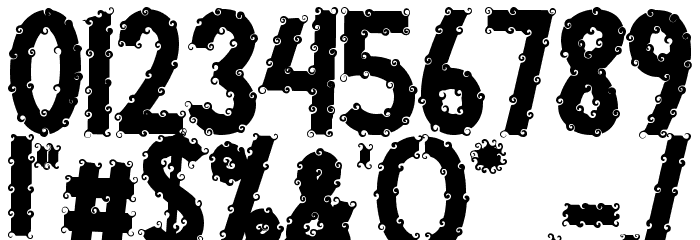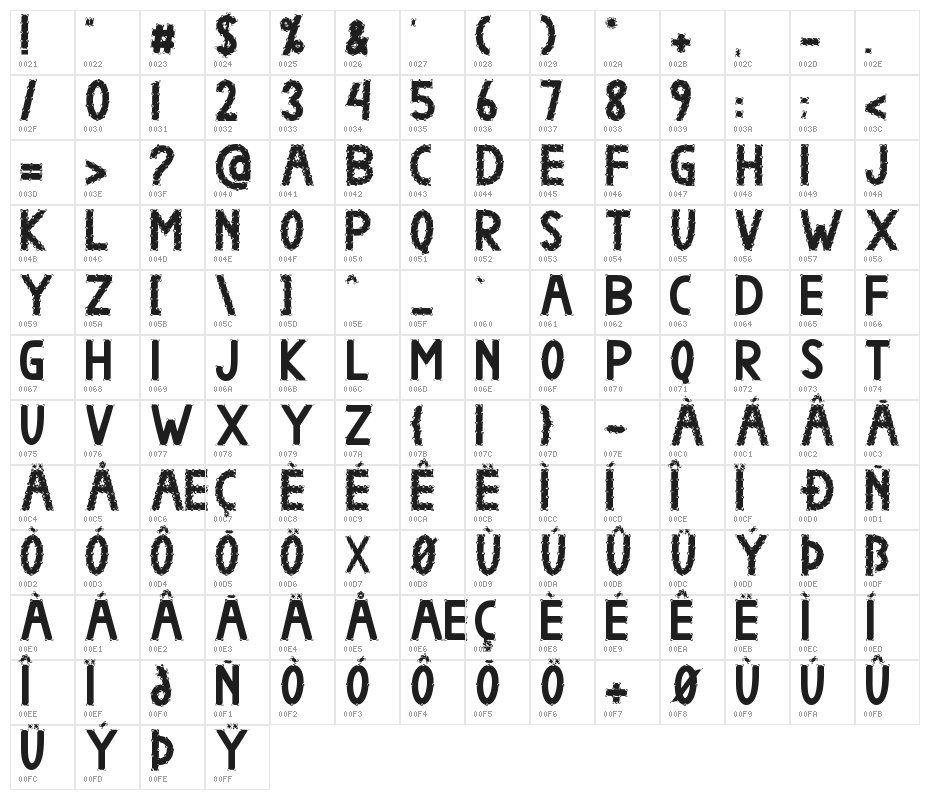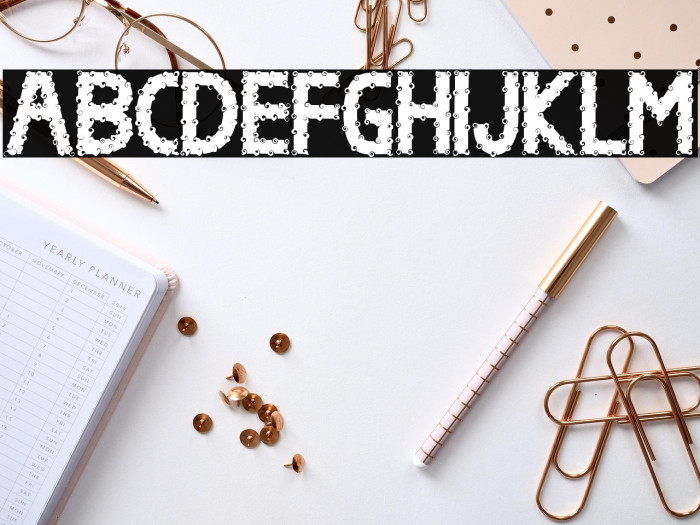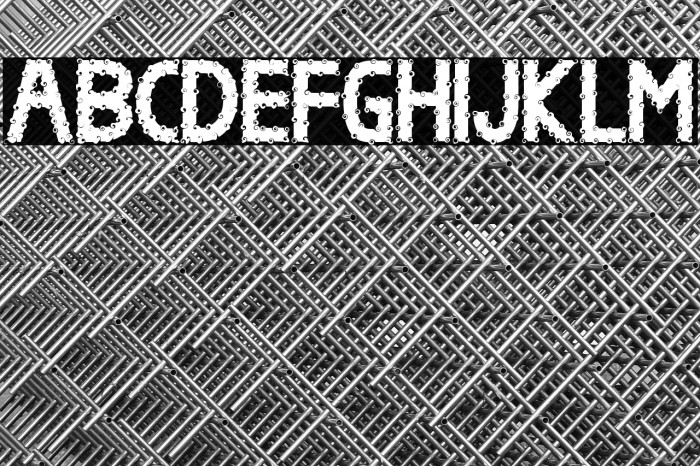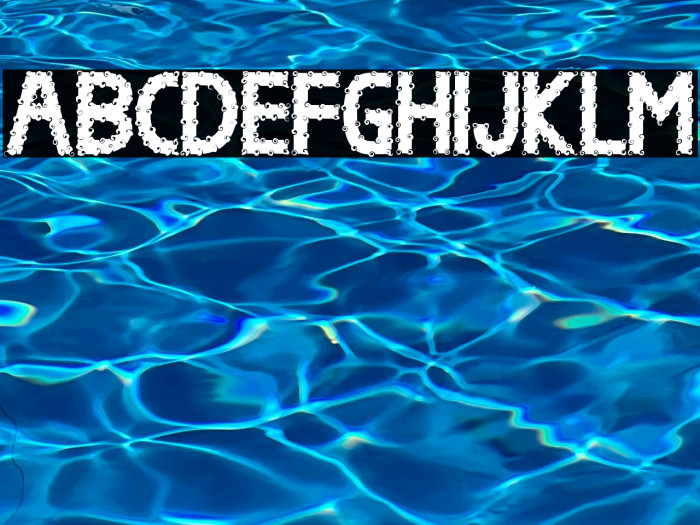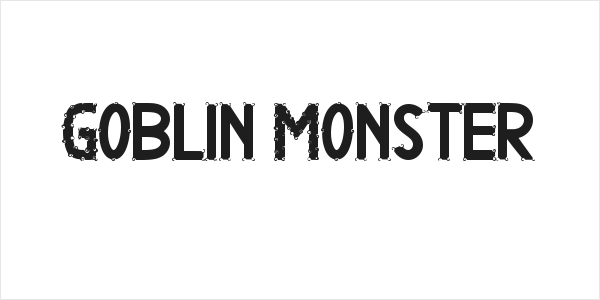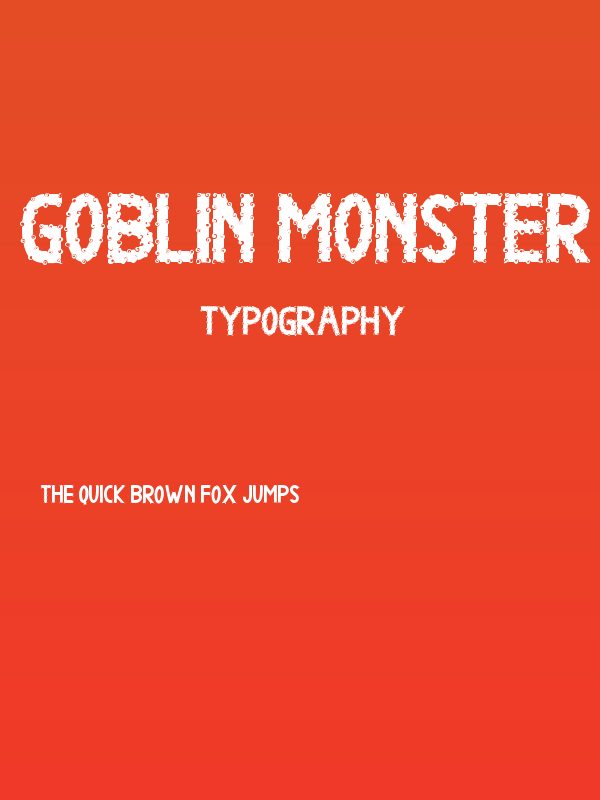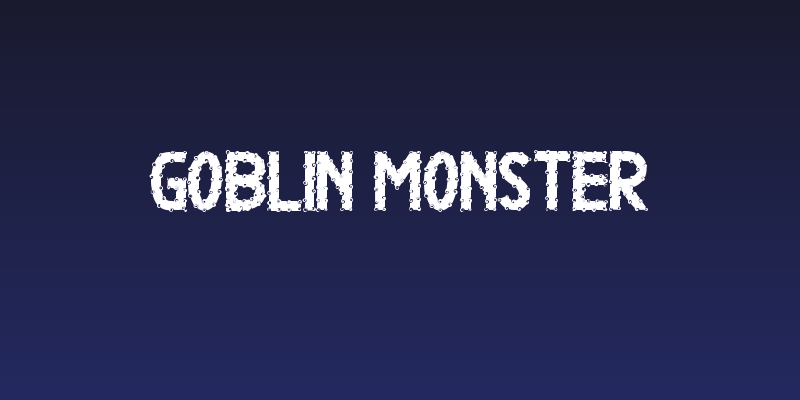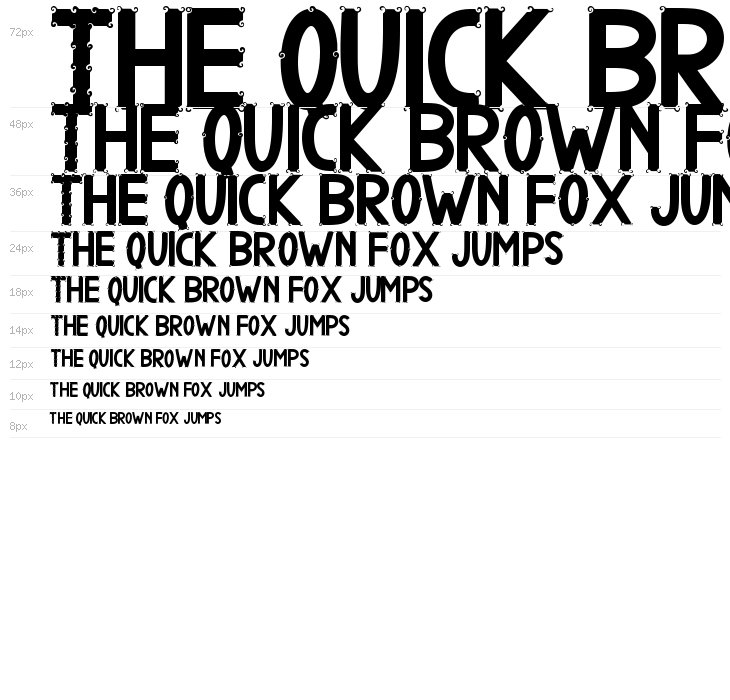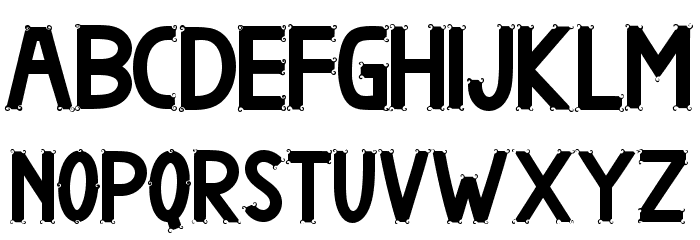
Goblin Monster Font
Goblin Monster Description
This font features a playful and quirky design, characterized by irregular, jagged edges that give it a monstrous, goblin-like appearance. The uppercase letters are bold and prominent, with a unique texture that resembles a rough, hand-drawn style. The lowercase letters maintain the same whimsical quality, ensuring consistency throughout the typeface. Numbers and special characters are equally distinctive, with exaggerated curves and angles that enhance the font's overall eccentricity. This font is perfect for projects that require a fun, eye-catching aesthetic.
| Proposed Projects | Ideal for Halloween-themed designs, children's book covers, playful posters, and creative branding. |